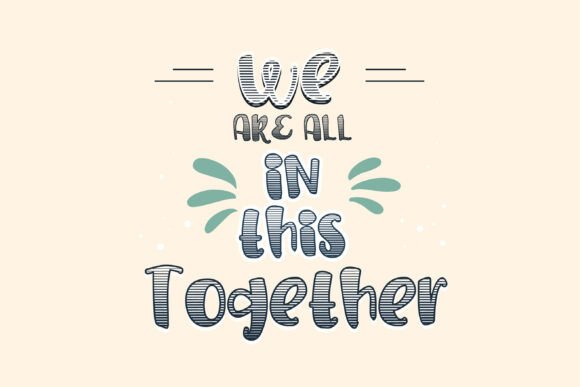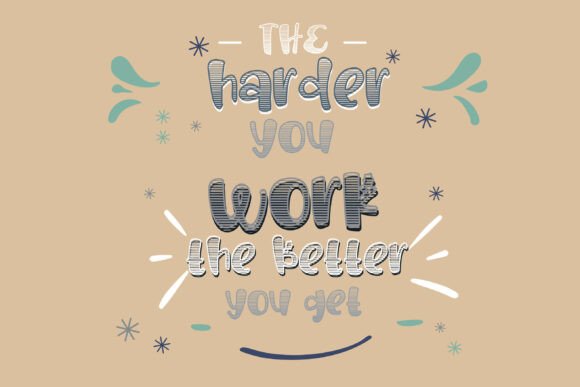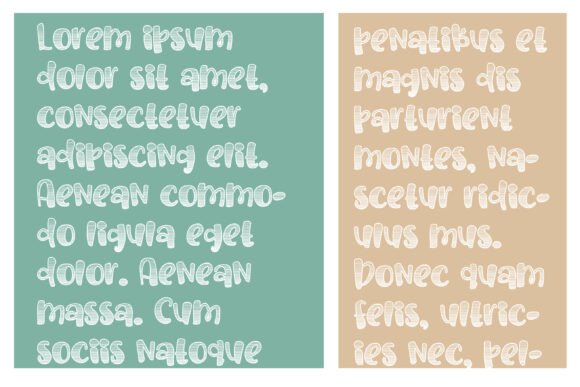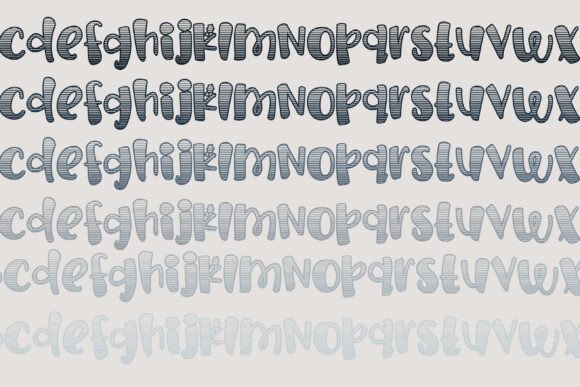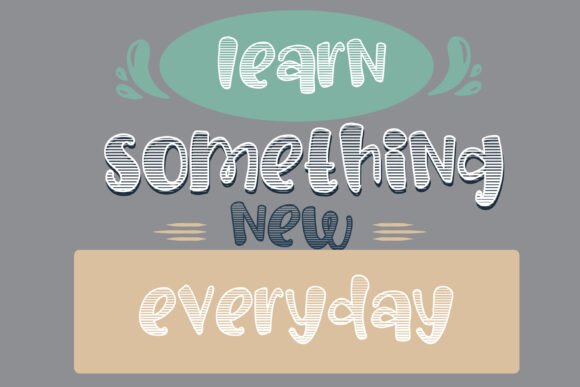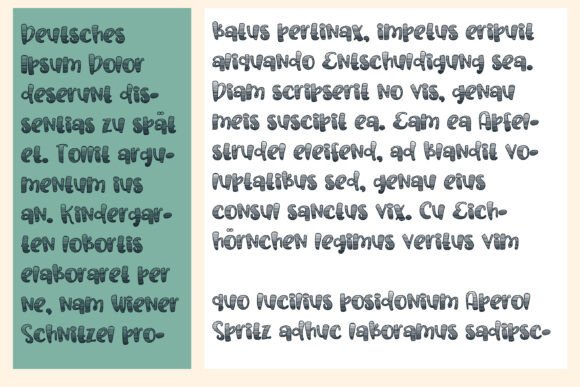
Introduction to Nutcracken Font
This hand-crafted font is a whimsical sans serif with candy stripes throughout.
A hand-crafted font is a font that is designed to look like it was written by hand It is often used for invitations, greeting cards, and other items.
Key Features of Nutcracken Font